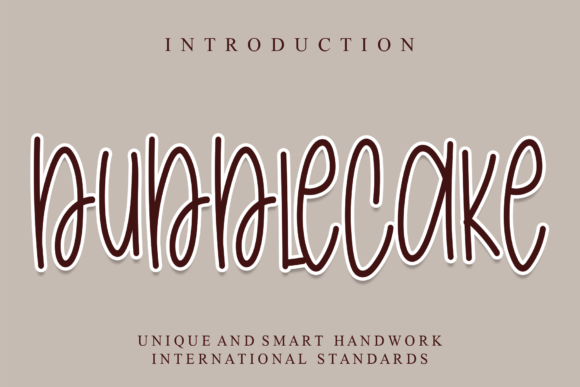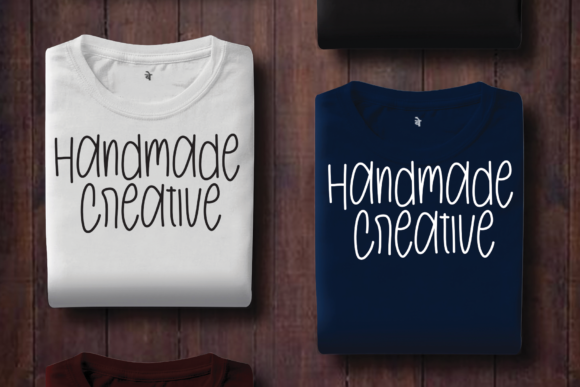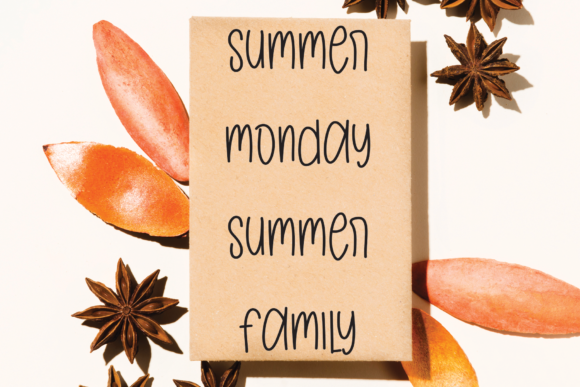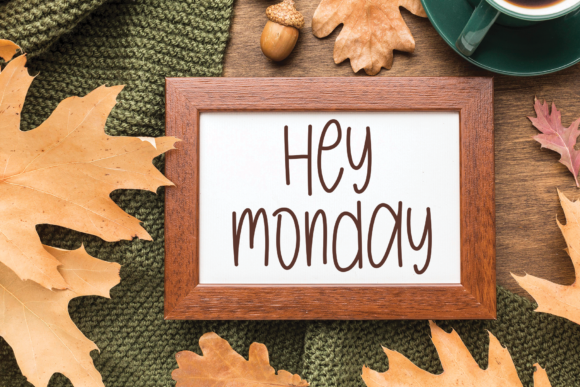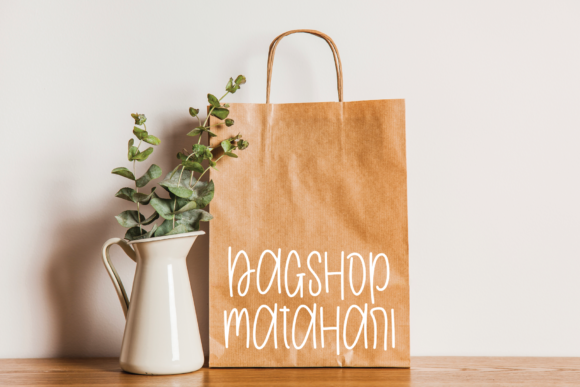
Bubblecake Font
About Bubblecake Font
“Bubblecake” is a delightful and beautifully flowing handwritten font that effortlessly combines slim characters with a stylish flair. With its unique charm and playful appeal, this font is perfect for projects that require an authentic and whimsical touch.
The flowing nature of “Bubblecake” gives it a sense of movement and elegance. Each letter is carefully crafted, with slim and graceful strokes that create a harmonious and balanced look. The font’s stylish flair adds a touch of personality and creativity, making it a great choice for designs that need a playful and expressive vibe.
Whether you’re working on invitations, greeting cards, logos, social media posts, or any other creative project, “Bubblecake” will bring a fresh and lively feel. Its handwritten style adds an authentic and personal touch, making your designs stand out and capturing the attention of your audience.
The versatility of “Bubblecake” allows it to work well with a variety of themes and concepts. It can enhance designs for birthdays, parties, celebrations, or any occasion that calls for a fun and vibrant atmosphere. Its slim characters and flowing lines create a sense of movement and energy, bringing life to your projects.
In summary, “Bubblecake” is a beautifully flowing handwritten font with slim characters and a stylish flair. Its authentic and playful look makes it an excellent choice for projects that require a touch of whimsy and creativity. Let this font add a delightful and charming element to your designs and make them truly stand out!